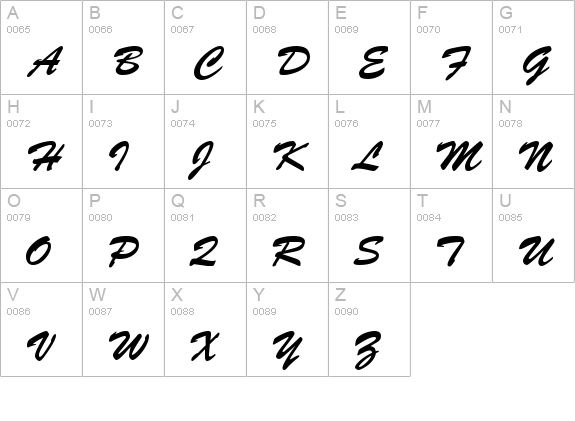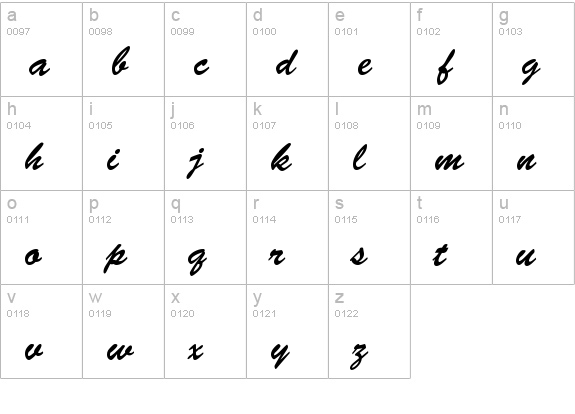
QTBrushStroke Regular Font Details
QTBrushStroke Regular is the standard, neutral variant in the QTBrushStroke typeface family \xE2\x80\x94 well suited to general body text, paragraphs, and standard typographic work.
QTBrushStroke Regular font is a stylish and versatile typeface that combines elegance with a touch of artistic flair. Its unique brushstroke design adds a sense of creativity and originality to any project. The carefully crafted letterforms are bold and expressive, making them perfect for headlines, titles, and logos. This font is not only visually stunning, but it is also highly legible and easy to read, making it suitable for a wide range of design applications. Whether you're designing a website, creating a poster, or working on a branding project, QTBrushStroke Regular will elevate your design and captivate your audience. One of the best things about QTBrushStroke Regular font is that it is available for free download at FontsMarket.com. This means that you can enjoy all the benefits of this amazing font without having to spend a dime. Simply visit FontsMarket.com, locate the QTBrushStroke Regular font, and download it to your computer or device. The freedom to use this font freely allows you to unleash your creativity without any limitations. You can experiment with different styles and layouts, knowing that you have a high-quality font at your disposal. Whether you're a professional designer or a hobbyist, QTBrushStroke Regular font is a valuable addition to your font library. Don't miss out on the opportunity to enhance your designs with the unique charm of QTBrushStroke Regular font. Download it for free at FontsMarket.com and start creating stunning visuals that will leave a lasting impression.